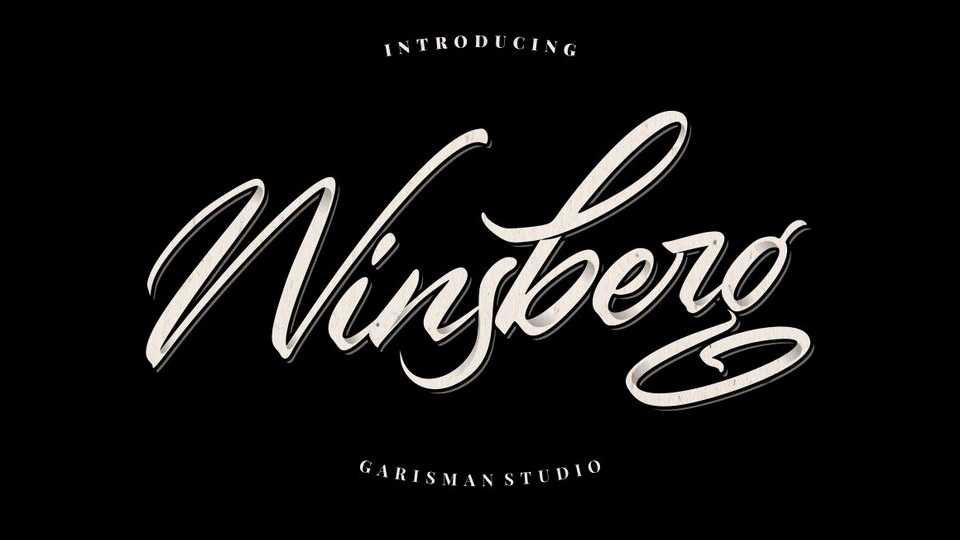
Download Winsberg font, a beautiful modern script made by natural handwriting with a stylish ending swashes. With unique Opentype features it will add aesthetic value to your design product.
Designer: Garisman Studio